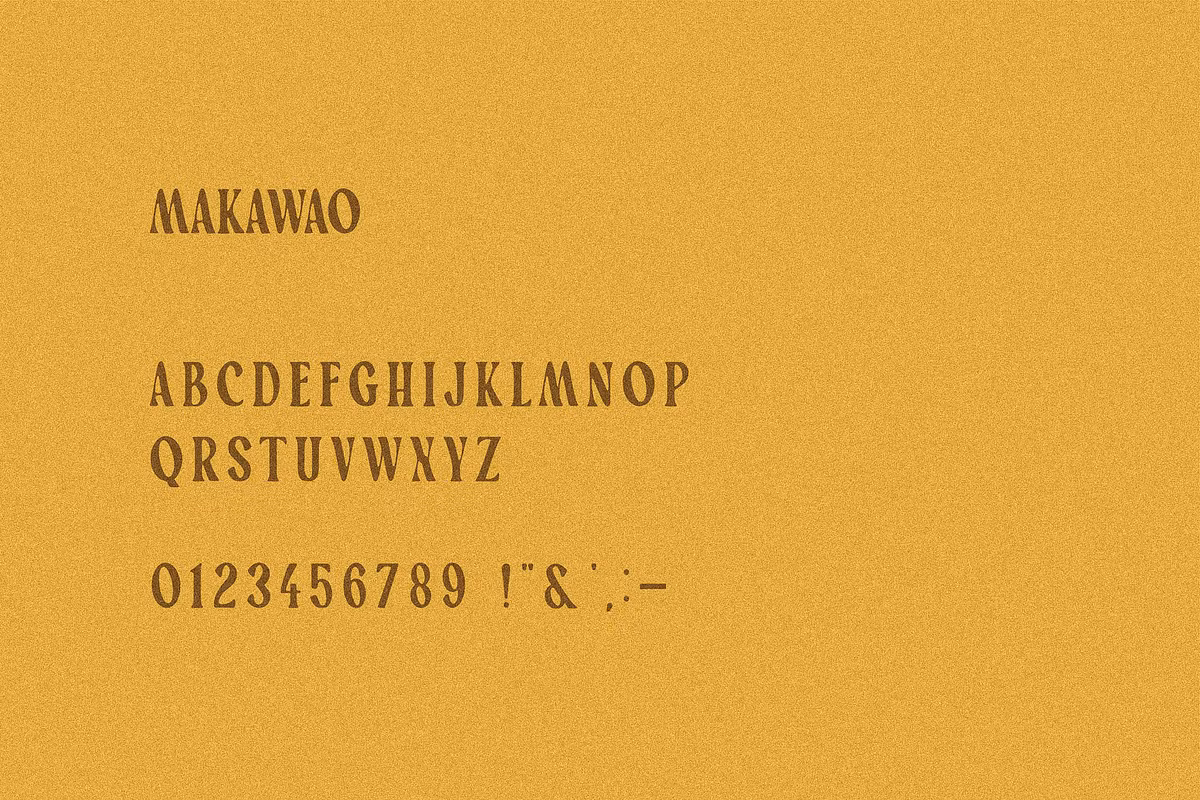
Introduction to Makawao
Makawao is an addition to the world of type. Makawao is a serif font with a welcoming feel. Makawao works well for projects. Makawao looks good in a logo, in a website, and in printed material. Makawao can improve your work. Add a bit of polish whether you are making a logo, building a website, or printing a brochure. Makawao fits design tasks and helps your designs stand out.
Design Style of Makawao
When I look at the design style of Makawao, I see curves and nice lines. The design style of Makawao feels like a choice for projects and for professional projects. The modern serif parts of the design style of Makawao give a modern feel. The design style of Makawao finds a ground that many people like.
Makawao feels relaxed. I notice Makawao works well for projects that want a friendly feel. Makawao’s design can fit themes from country style to clean modern style. I have seen Makawao adapt easily. Makawao’s ability to adapt is one of the reasons why designers choose Makawao often for the work they do.
Also, the font Makawao has a set of characters that let you make text designs. The serifs on the font Makawao taper, which gives the letters a feel of movement. That feel of movement helps the letters stay readable and keeps the eye interested. I see that the font Makawao is more than a typeface. I see that the font Makawao works as a design element that can set the mood of your project.
Character Sets in Makawao
Makawao includes a full character set. I see that the character set has all letters, numbers, and basic punctuation. The character set lets me create effective communication in my designs.
I notice the uppercase letters look bold and balanced. I use the letters for headings and titles. I see the numbers read easily at a glance. I rely on the punctuation to write sentences and clear text blocks. I find the font works well for both printed media.
Use Cases for Makawao
One of the strengths of Makawao is that it is flexible in creative projects. I have seen Makawao work well in design tasks. Below are some ways that Makawao looks good:
- Branding: Makawao has a demeanor. Makawao’s friendly demeanor makes it a good choice for logos and branding materials. Makawao’s unique character helps the brand build an identity.
- Web Design: On the web, designers can use Makawao for headings, buttons, and body text. Makawao is clear and easy to read on the screens.
- Print Media: When I design brochures, flyers, or business cards, I use Makawao’s features. Makawao’s features improve the look of printed materials.
- Social Media Graphics: The font looks modern. I have used the font. I see that the modern look of the font makes it good for making graphics for social media platforms.
I can see that each of these use cases shows how Makawao can improve your projects. Makawao gives an attractive type base.
Pairing Suggestions for Makawao
When I work with typography, I find that pairing fonts can change the design. Makawao pairs with other typefaces. Makawao shows its look and gives contrast. Here are some suggestions:
- Pairing with Sans-Serif Fonts: I combine Makawao with a clean sans-serif font such as Montserrat or Open Sans. The combination gives a new and even look.
- Complementing with Script Fonts: For a creative design, you can pair Makawao with a script font like Pacifico. Makawao with Pacifico feels whimsical.
- Contrasting with Bold Fonts: I create a contrast by pairing Makawao with a sans-serif font such as Bebas Neue. Makawao and Bebas Neue work well in advertising and promotional material.
Pairing suggestions help you get the most out of Makawao. Pairing suggestions let you make designs that catch the eye and make your designs stand out.
To sum up, Makawao is a serif font that gives a friendly feeling to any design project. Makawao has a design style, a set of characters, and many uses. Designers can pick Makawao when they want to improve their work. Makawao works for branding, web design, print, and social graphics. Makawao is a part of a typography toolkit.
Whether you are an expert designer or a beginner, you can explore the possibilities with Makawao. Makawao can lift your projects and make your typography stand out. Embrace the serif font Makawao and let it inspire your next creative venture.